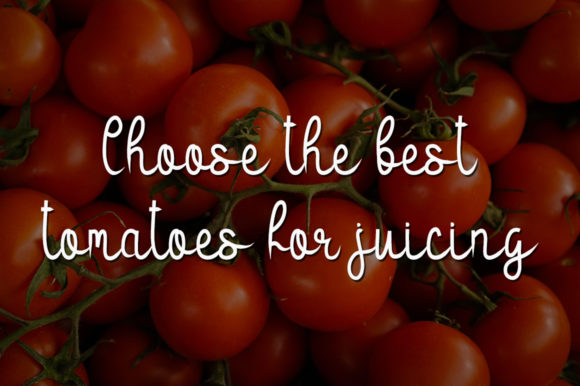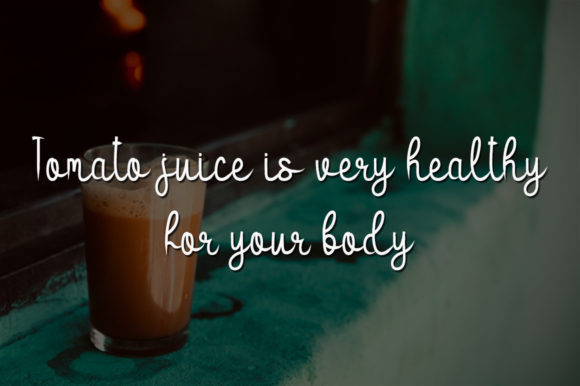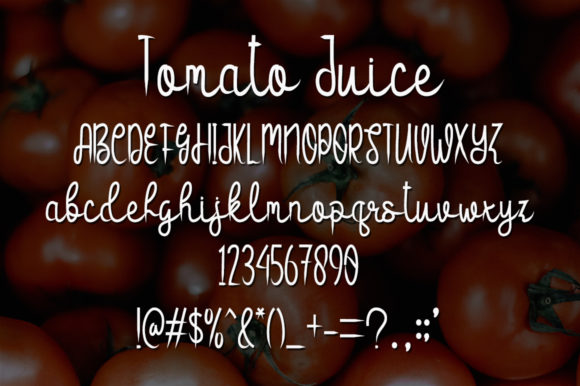
About Tomato Juice Font
Tomato Juice is a delicate and elegant handwritten font. Its distinct and well rounded letters make this font a masterpiece. Fall in love with its incredibly versatile style and use it to create spectacular designs!